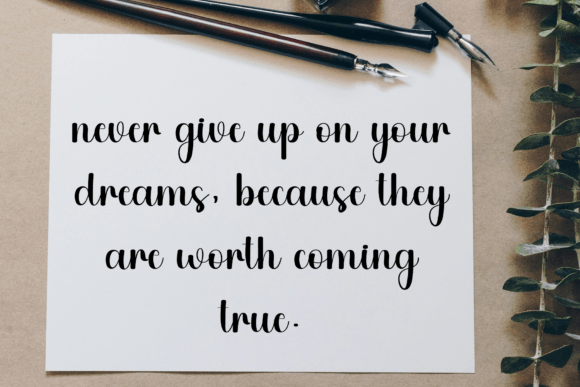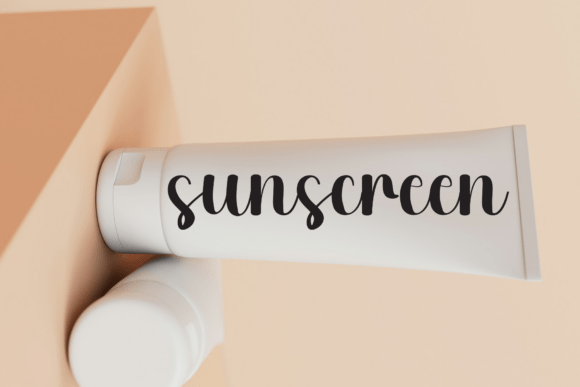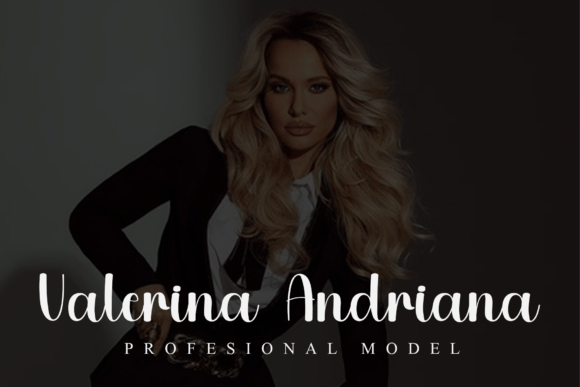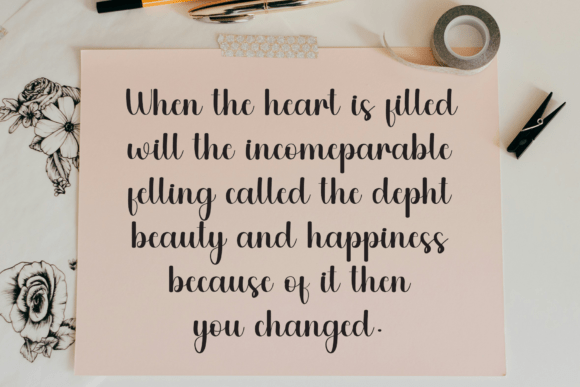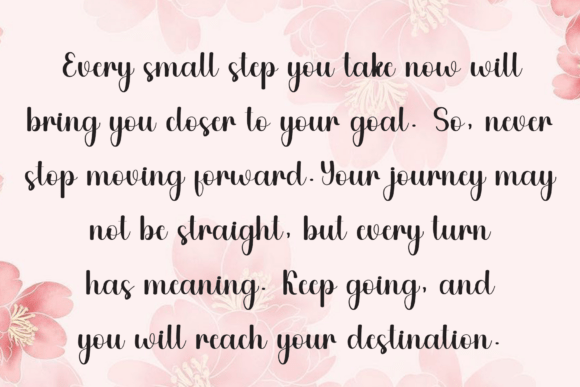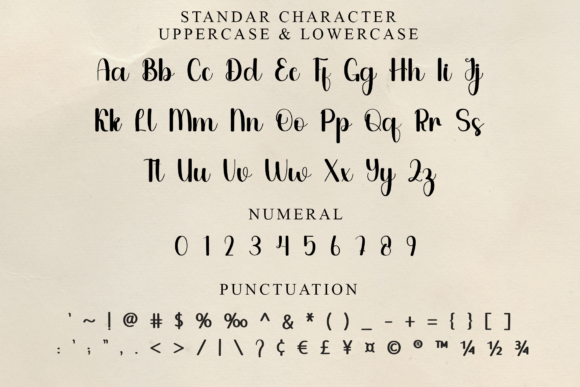
Introducing Alanta Handmade Font: The Perfect Holiday Companion for Designers and Crafters
As the holiday season approaches, designers and crafters are on the lookout for the perfect typography to add a touch of magic to their creations. Look no further than Alanta Handmade Font, a festive and merry typeface that captures the essence of the holiday spirit. With its decorative elements and whimsical flair, this font is sure to bring a cheerful and nostalgic ambiance to your words.
Alanta Handmade Font is a beautifully crafted typeface that embodies the joy and wonder of the holiday season. Its decorative elements, such as intricate swirls and flourishes, add a touch of enchantment to any design. Whether you’re creating greeting cards, gift tags, or holiday-themed projects, this font is sure to make your typography shine.
Alanta Handmade Font is specifically designed with holiday projects in mind. Its whimsical and festive nature makes it perfect for:
- Greeting cards: Add a personal touch to your holiday cards with this beautiful font.
- Gift tags: Make your gifts stand out with custom gift tags featuring Alanta Handmade Font.
- Holiday-themed projects: From Christmas decorations to Halloween treats, this font is perfect for any holiday project.
One of the best features of Alanta Handmade Font is that it’s PUA (Private Use Area) encoded. This means that you can access all of the amazing glyphs and ligatures with ease, making it simple to create beautiful and intricate designs.
Why Choose Alanta Handmade Font?
With so many fonts available, why choose Alanta Handmade Font? Here are just a few reasons:
- Unique and festive design: This font is sure to stand out in any design.
- Easy to use: With PUA encoding, you can access all of the glyphs and ligatures with ease.
- Versatile: Perfect for a variety of holiday projects, from greeting cards to gift tags.
- Nostalgic ambiance: This font brings a cheerful and nostalgic ambiance to your words.
Tips for Using Alanta Handmade Font
To get the most out of Alanta Handmade Font, here are a few tips:
- Experiment with different sizes and colors to add depth and interest to your designs.
- Pair with other fonts for a unique and eye-catching look.
- Use the glyphs and ligatures to add intricate details to your designs.
Alanta Handmade Font is the perfect addition to any designer’s or crafter’s toolkit. With its festive and merry design, PUA encoding, and versatility, this font is sure to bring a touch of magic to your holiday projects. So why wait? Download Alanta Handmade Font today and let your typography shine with the magic of Beautiful Font!
Whether you’re a seasoned designer or a crafter looking for a unique touch, Alanta Handmade Font is sure to delight. So go ahead, get creative, and make this holiday season one to remember with Alanta Handmade Font!